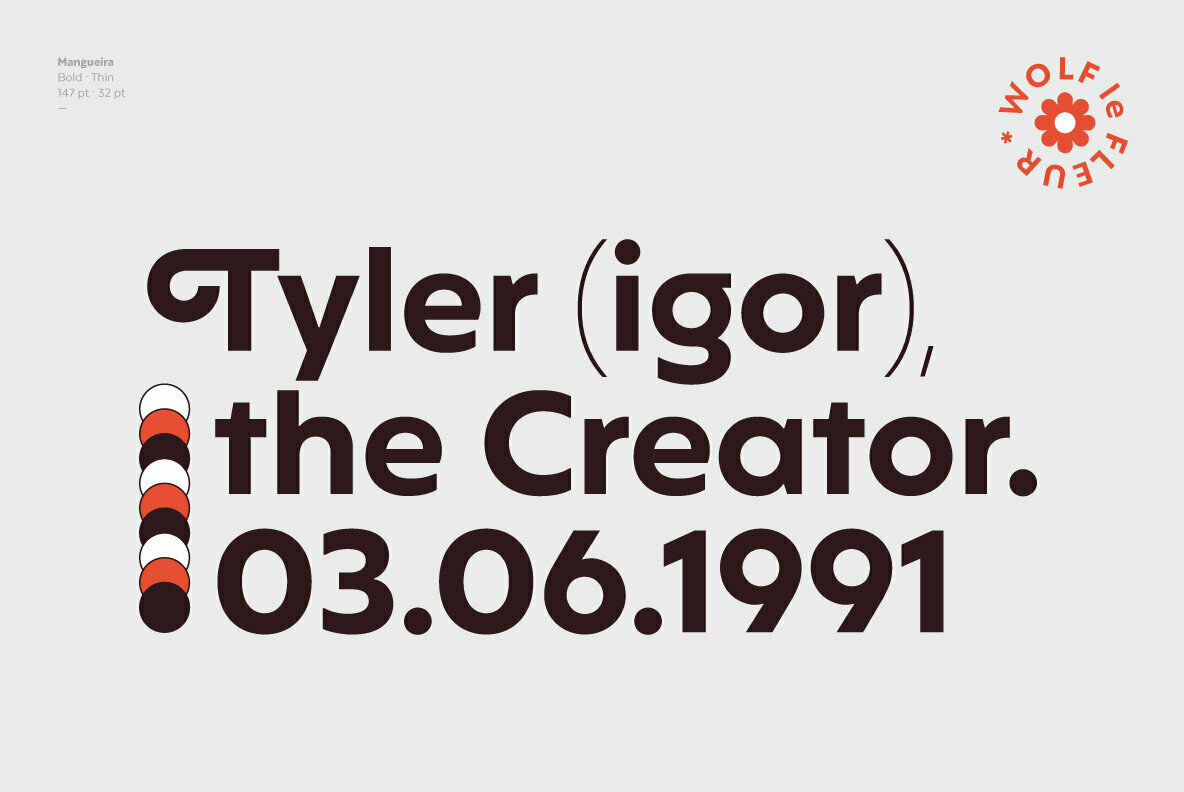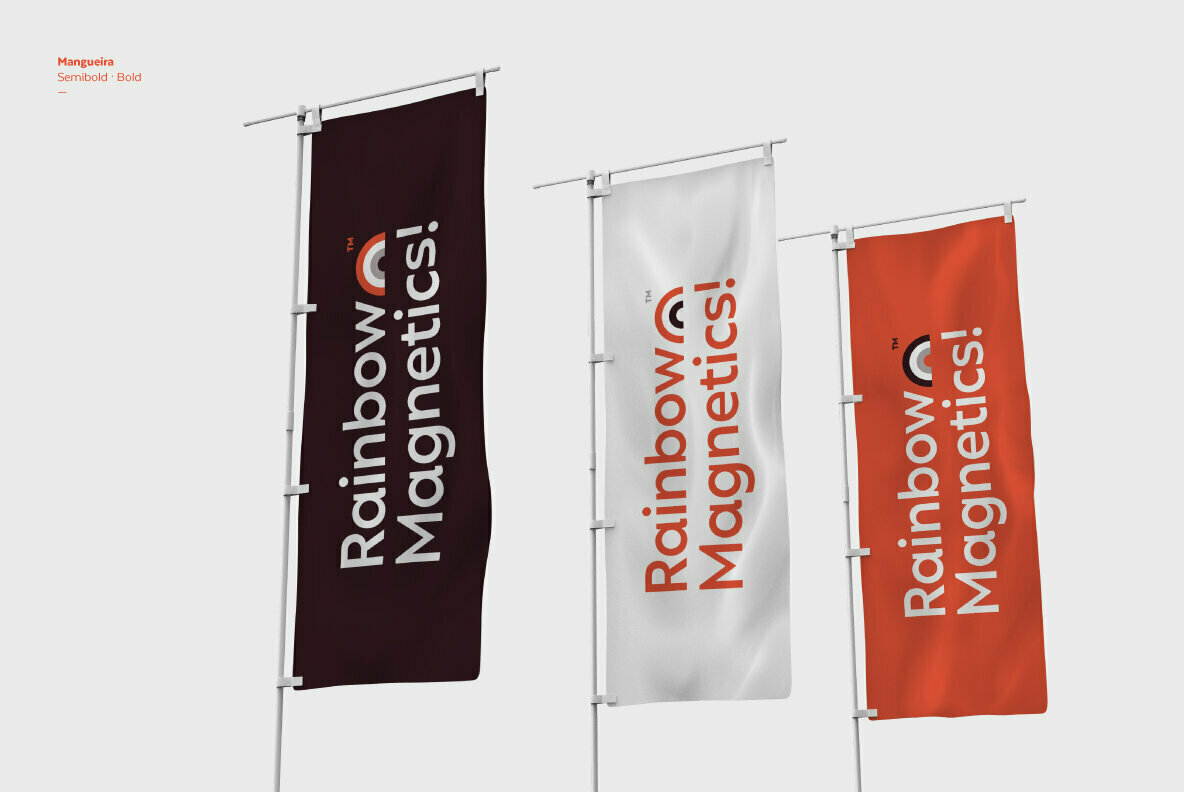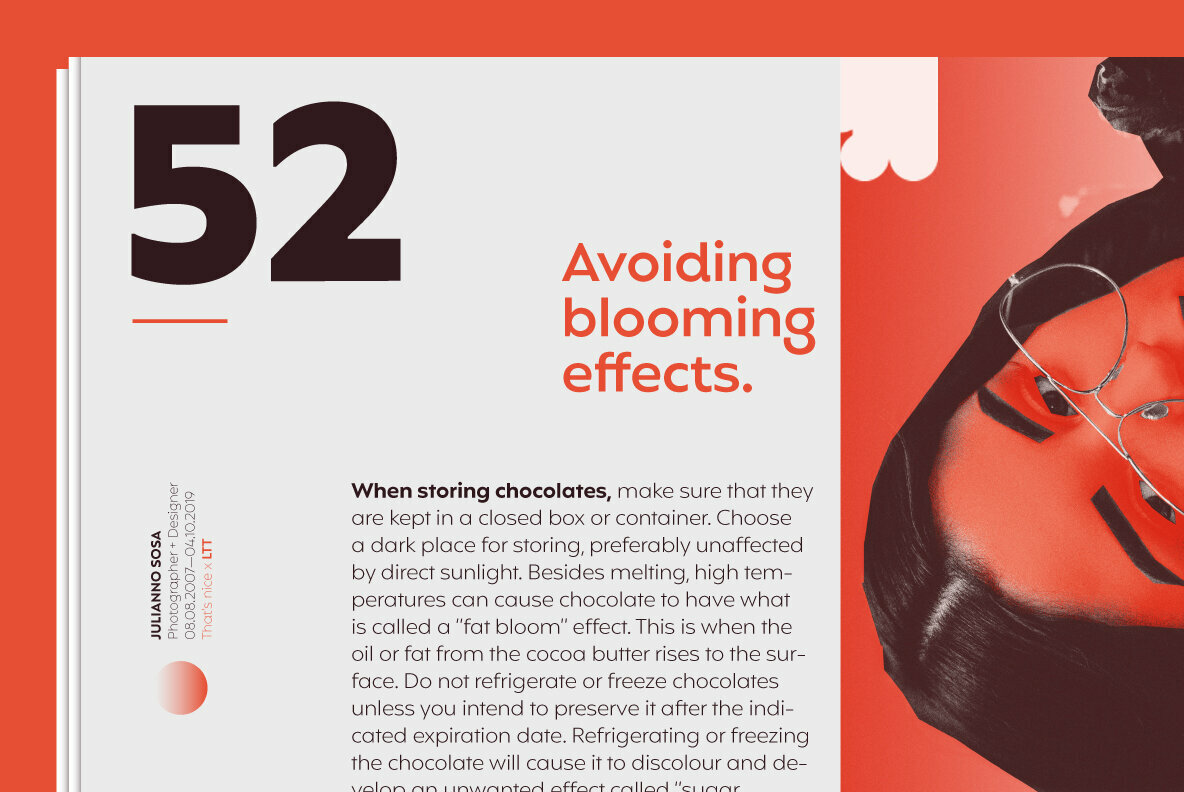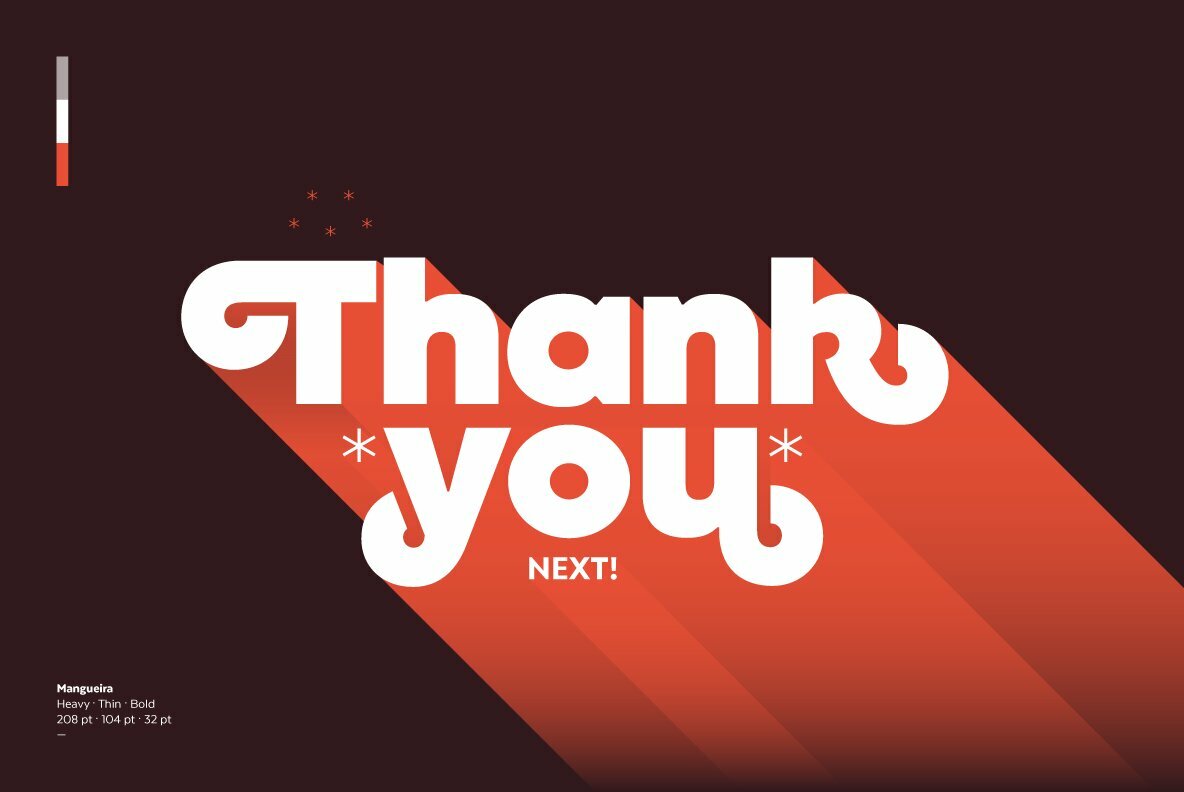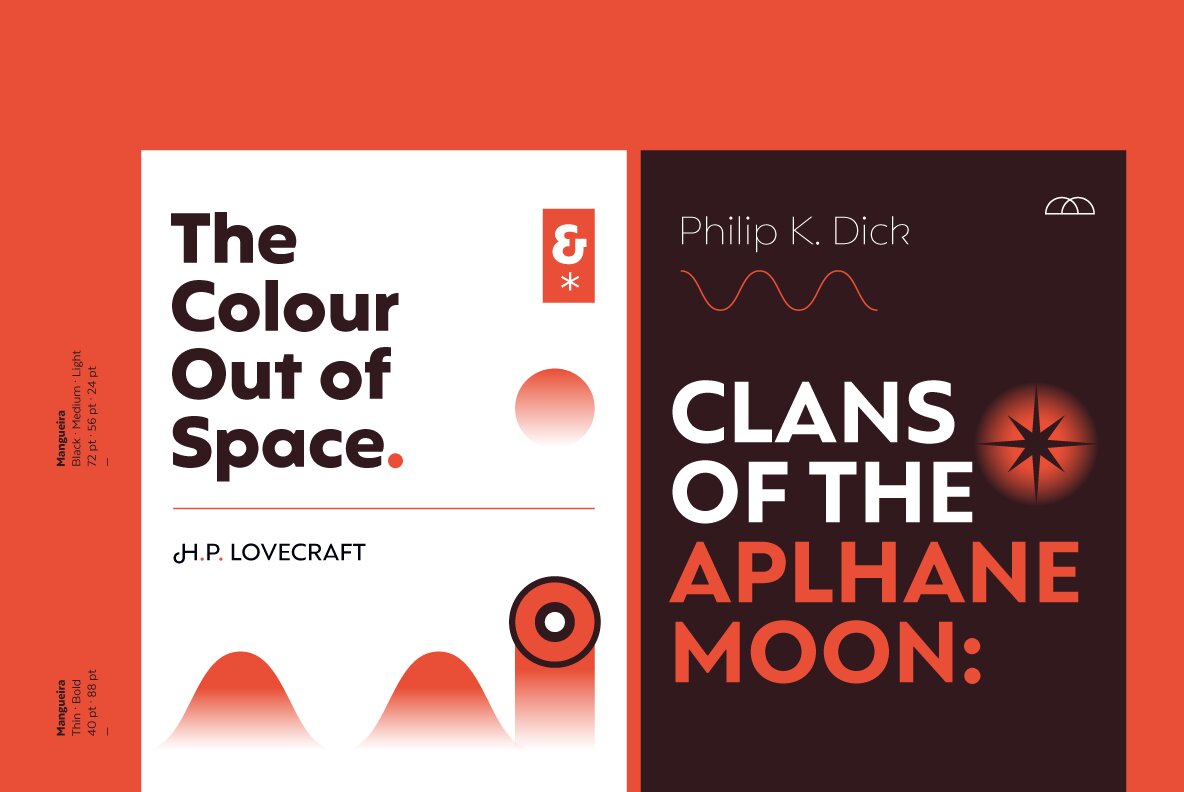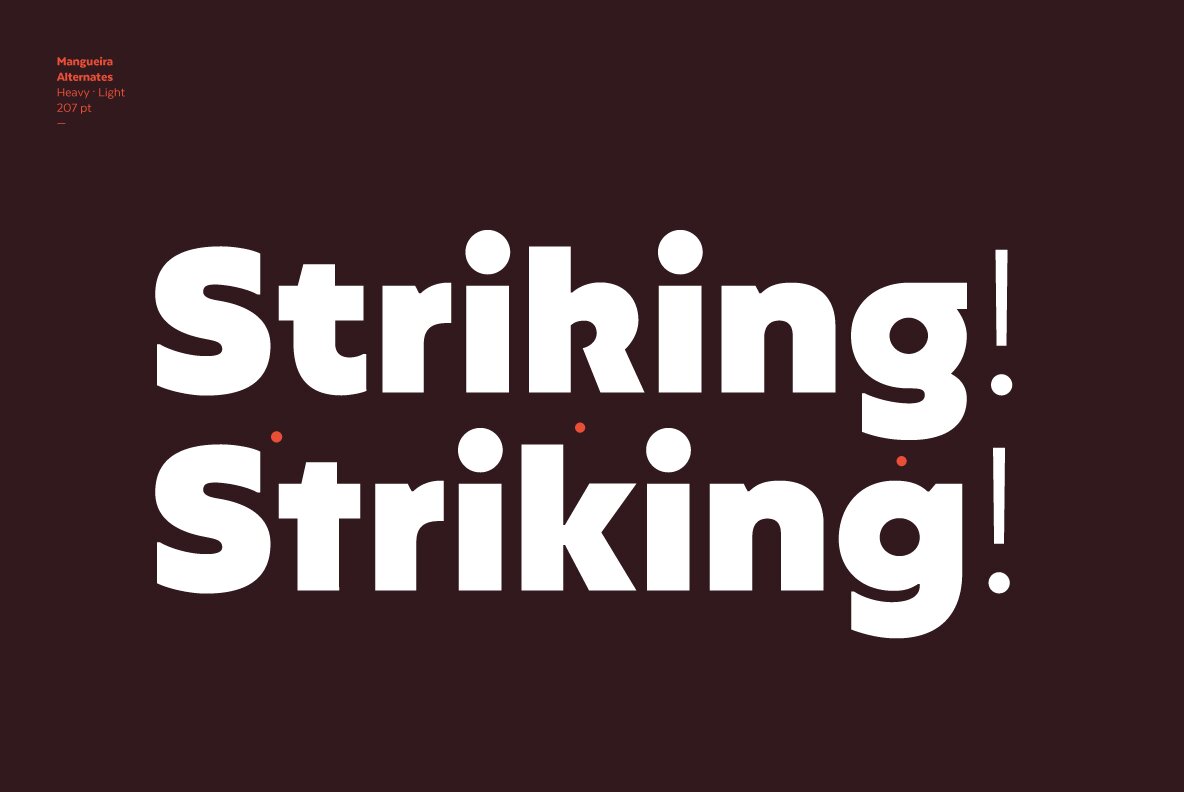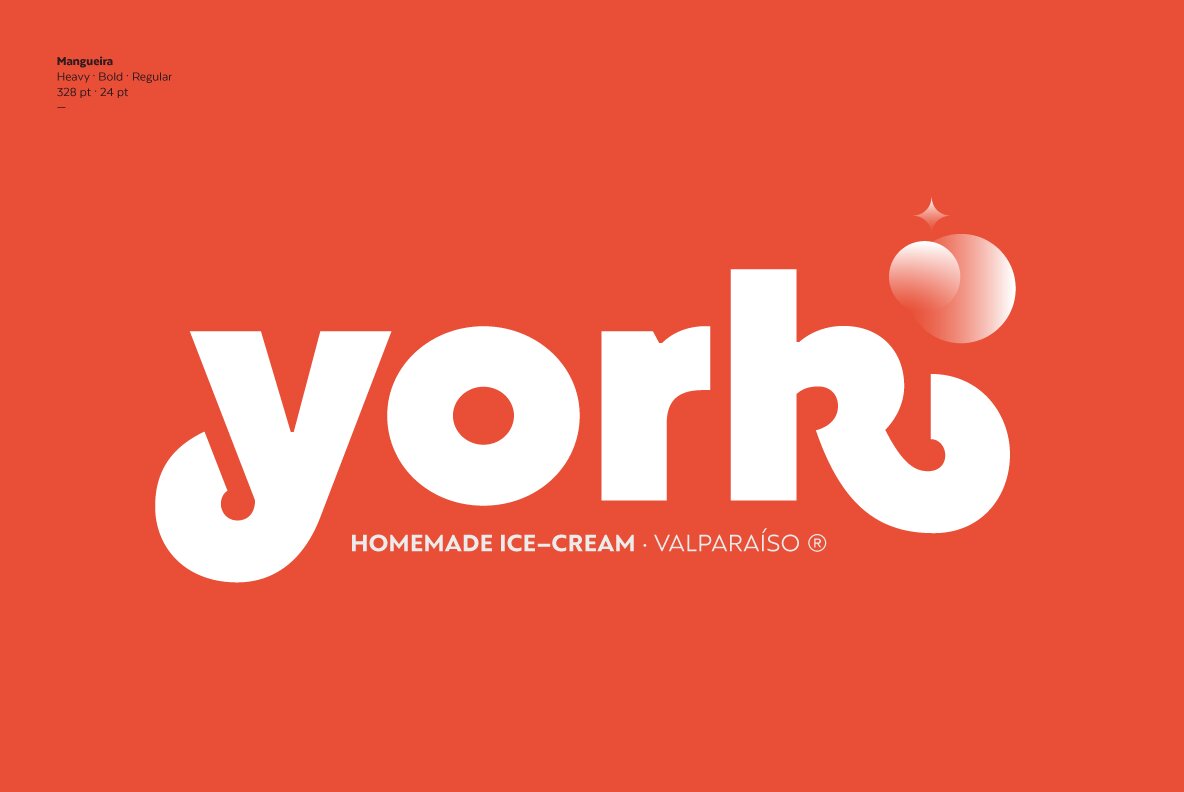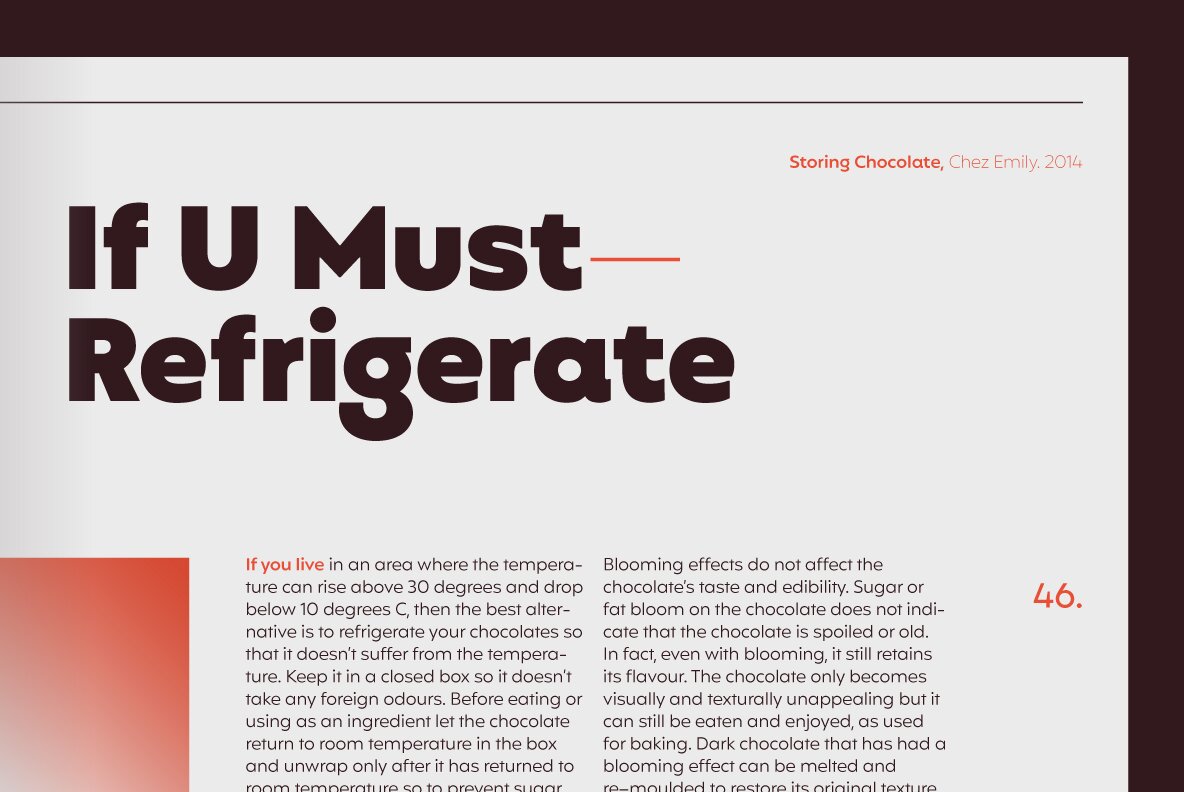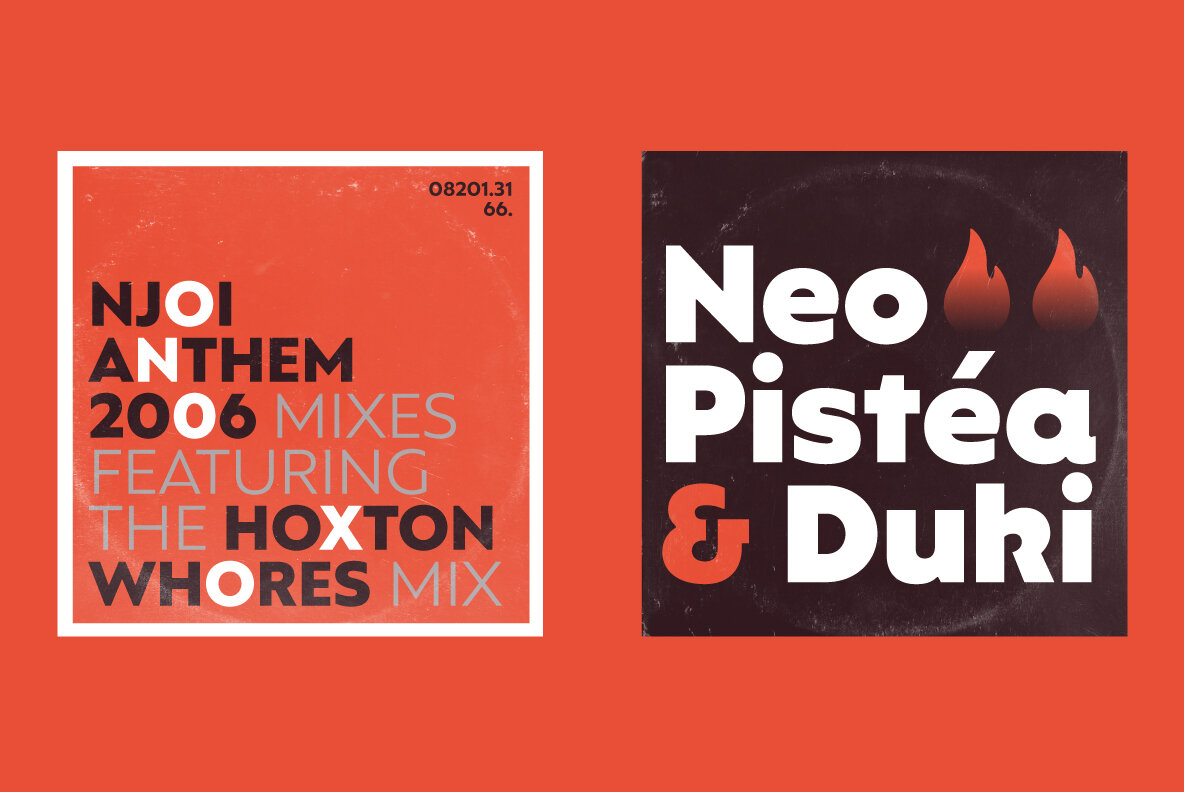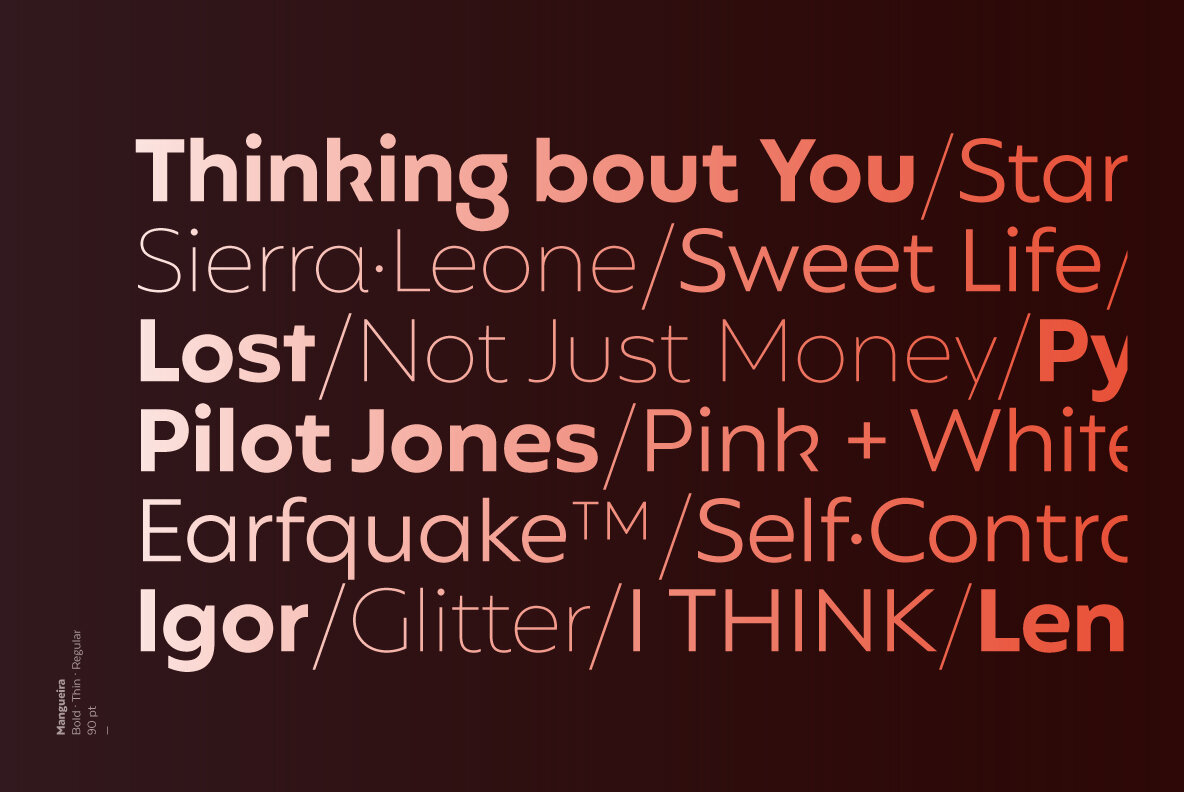
Mangueira Font
Mangueira is a sans-serif geometric typeface that is made up of 2 sub-families: one standard more contemporary family perfectly suited for display use and one alternative version for short blocks of text and more neutral titles. Each subfamily comes in 9 weights and includes swashes, which can be easily accessed from the OpenType menu.
One of its main features is the combination of geometric shapes and vertical terminals that resemble Humanist sans typefaces. A generous number of swashes along with unique details in some glyphs such as "g" and "k" make Mangueira a versatile font well-suited for editorial design, branding, packaging, web and broadcast use, etc.
Mangueira contains a set of 502 characters, supporting over 200 Latin-based languages.